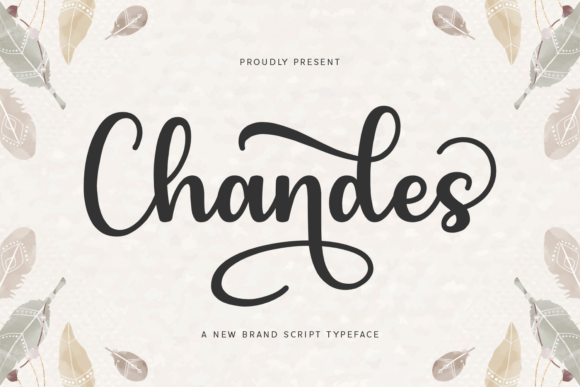
The Perfect Script for a Lasting Impression
As designers, we’ve all been there – staring at a blank canvas, trying to conjure up the perfect font to capture our audience’s attention. And then, it hits us – the moment when the right font makes all the difference. For me, it was a client’s request for a unique wedding invitation that required something truly special.
That’s where Chandes Font comes in – a bold script font that exudes elegance and sophistication. Perfect for creating eye-catching titles and invitations, Chandes Font combines modern style with a touch of classic charm, making it a versatile choice for designers. Whether you’re working on a high-end project or a personal design, Chandes Font adds a stylish flair to your text that’s sure to leave a lasting impression.
Chandes Font Key Features
- Unique Characteristics: Chandes Font features a unique blend of modern and vintage elements, with intricate details and ornate flourishes that set it apart from other fonts.
- Font Style: Chandes Font is available in a single style, but it can be easily customized using font editors or software to create a range of different effects and moods.
Chandes Font Review
First impressions are everything, and Chandes Font certainly made a bold statement. Its unique blend of modern and vintage elements caught my eye, and I couldn’t wait to dive in and explore.
- Chandes Font’s versatility shines through in its ability to be used for both headlines and body text, making it an excellent choice for a wide range of projects.
- The font’s subtle flair and elegant lines create a sophisticated look that’s perfect for luxury brands or high-end publications.
- The font is highly legible, even at small font sizes, which is a testament to its well-designed letterforms.
- Chandes Font may not be the best choice for projects that require a more playful or casual tone, as its elegant style may come across as stuffy.
- The font’s unique elements can sometimes feel a bit overdone, which may be jarring for some designers.
Chandes Font is a solid choice for designers looking for a sophisticated, high-end font that’s perfect for luxury brands or publications. While it may not be the best fit for every project, its unique blend of modern and vintage elements makes it a compelling option for designers looking to add some flair to their designs.
Tips for Getting the Most Out of Chandes Font
Chandes Font is a versatile font that can be used in a variety of contexts, from formal documents to creative projects. To get the most out of it, try using it in combination with other fonts to create a unique and eye-catching look.
Experiment with different font sizes, colors, and styles to find the perfect combination for your project.
Chandes Font is commonly used in:
1. Creative projects, such as posters, flyers, and brochures.
Alternatives to Chandes Font
Monserrat Font is a modern sans-serif typeface that is suitable for digital applications, including websites and mobile apps. It is highly legible and works well in various screen resolutions. Montserrat Font is a great alternative to Chandes Font when you need a clean and minimalist design. It is more geometric and has a more modern feel compared to Chandes Font.
Open Sans Font is a popular sans-serif typeface that is designed for digital use. It is highly readable and works well in a variety of contexts, including body text and headings. Open Sans Font is a great alternative to Chandes Font when you need a clean and professional design. It is more neutral and has a more subtle feel compared to Chandes Font.
What is the recommended font size for Chandes Font?
The recommended font size for Chandes Font is between 10pt and 24pt. However, the optimal font size will depend on the specific application, screen resolution, and viewing distance. Experiment with different font sizes to find the most legible and visually appealing setting for your design.